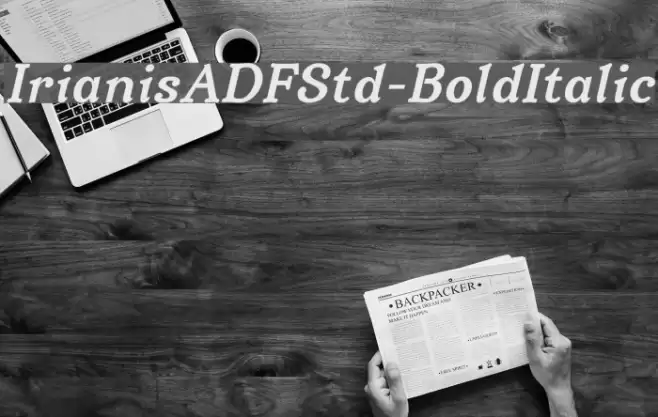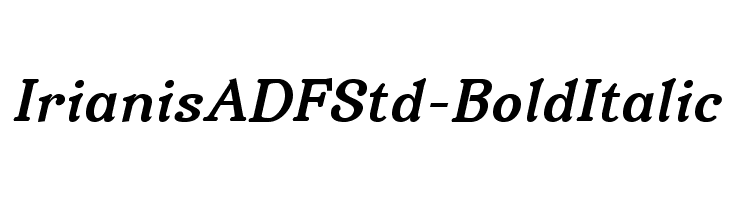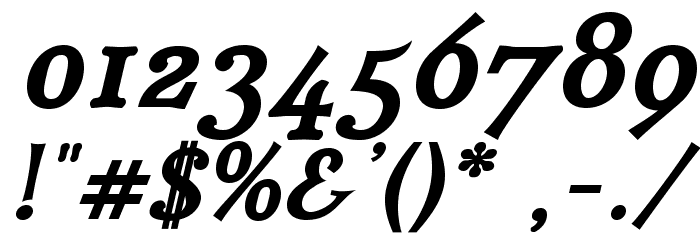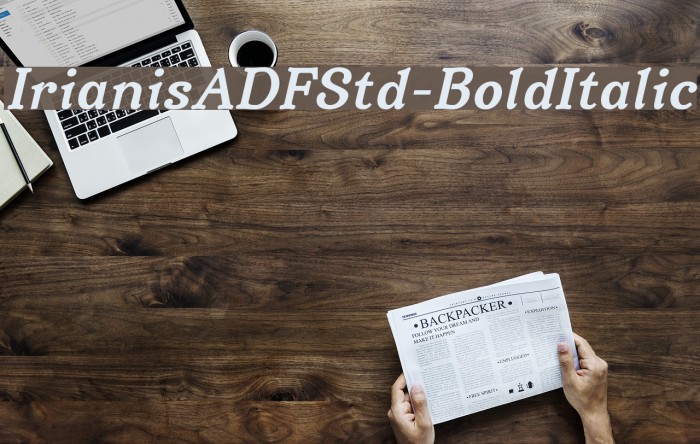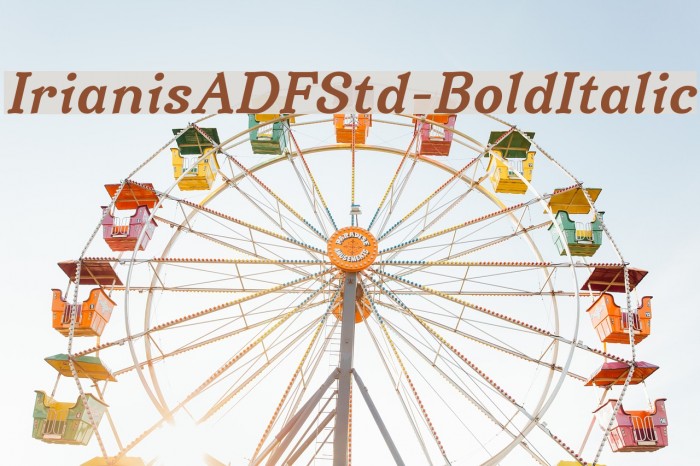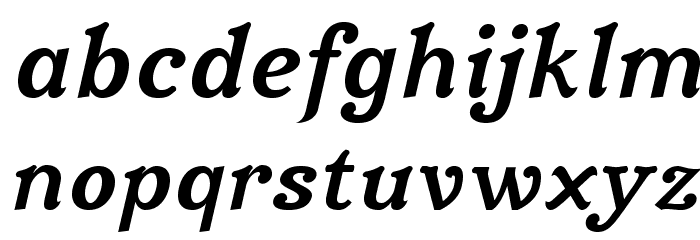
IrianisADFStd-BoldItalic Font
IrianisADFStd-BoldItalic Description
This font features a bold and italic style, combining a classic serif structure with a modern twist. The characters are elegantly slanted, providing a dynamic and sophisticated appearance. The uppercase letters are strong and commanding, while the lowercase letters maintain a smooth and flowing form. Numerals are clear and distinct, making them suitable for various applications. The special characters are well-integrated, ensuring versatility in design. Overall, this font exudes a sense of elegance and authority, making it ideal for formal and professional settings.
A bold, italic serif font with a modern and elegant style from Uncategorized fonts.
- Proposed Projects: Ideal for branding, editorial design, book covers, and formal invitations.
- Use Case: Headlines, Logos, Editorial design